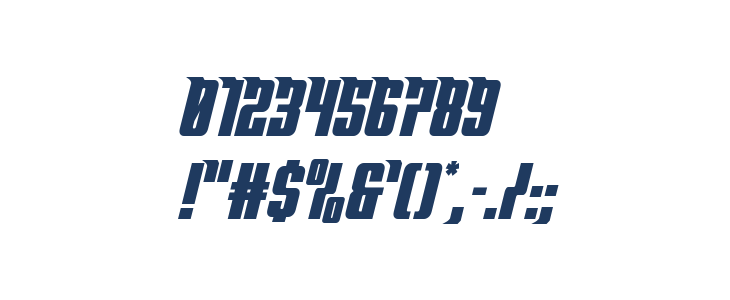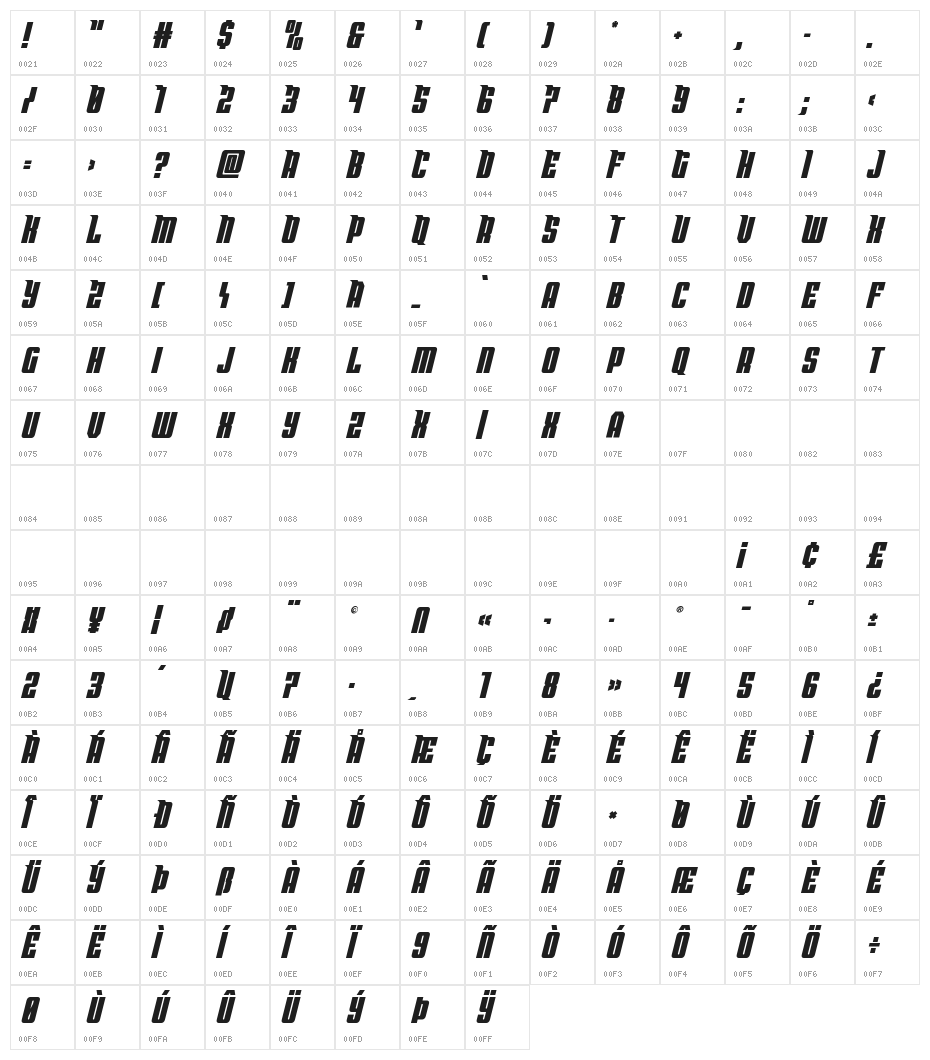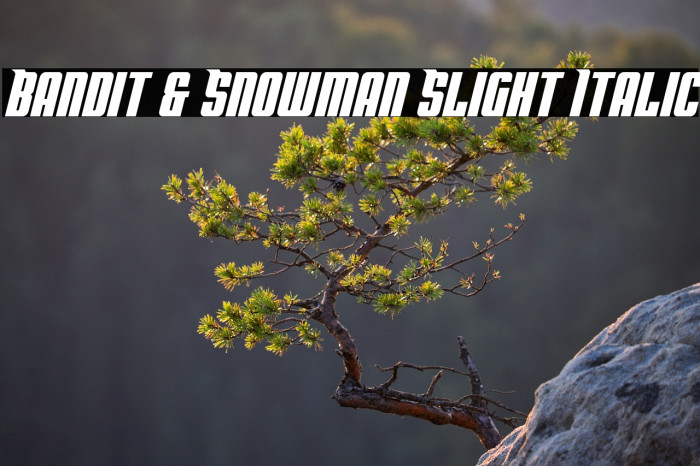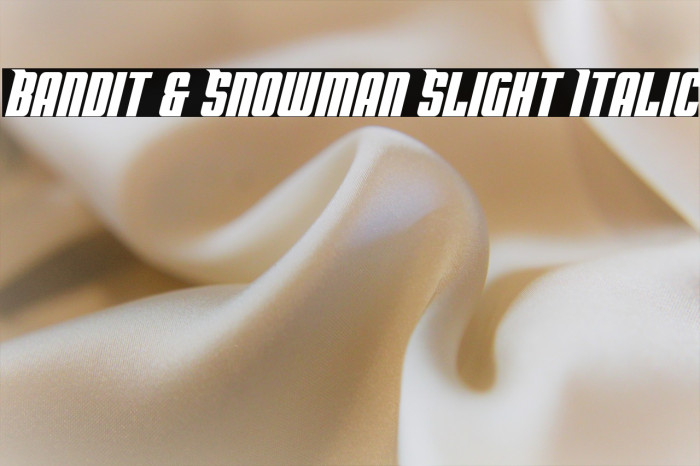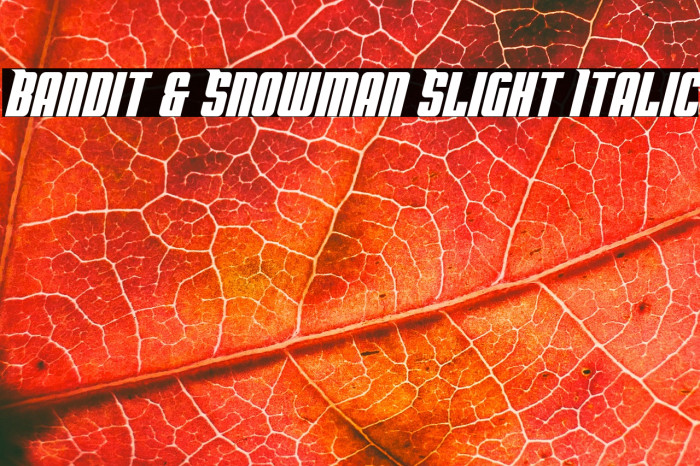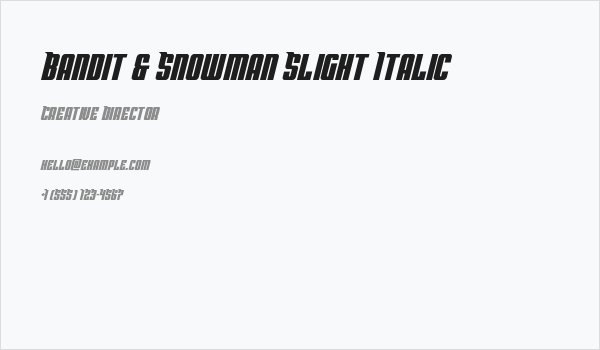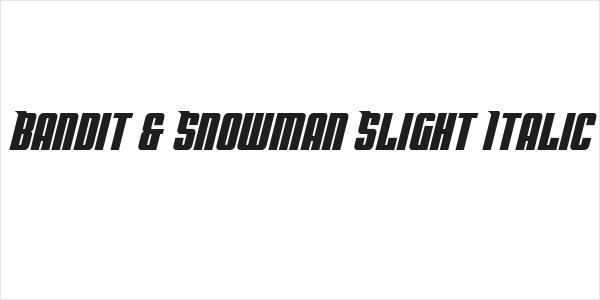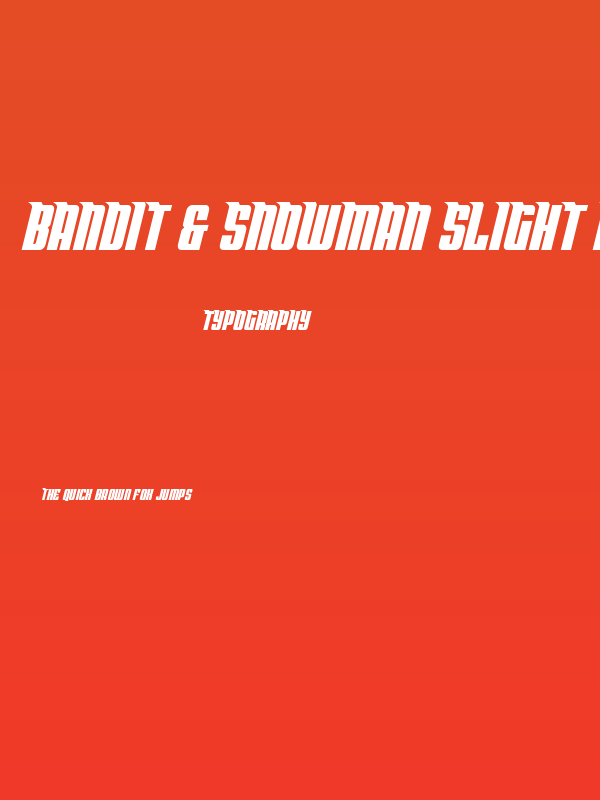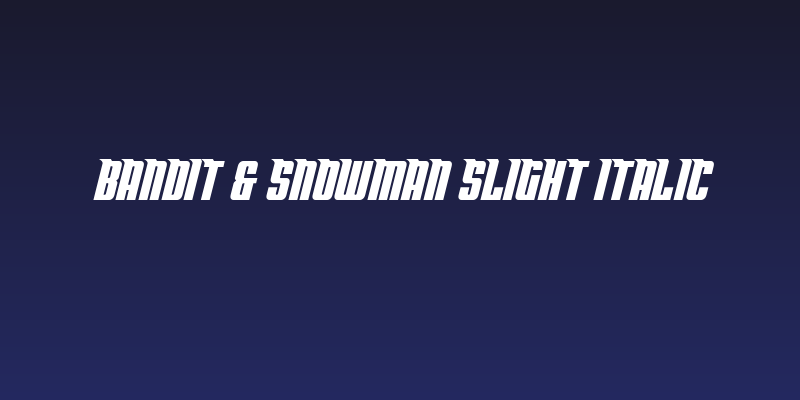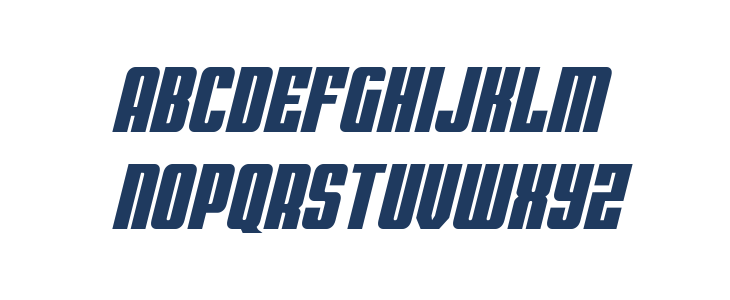
Bandit & Snowman Slight Italic Font
Bandit & Snowman Slight Italic Description
This font features a bold and dynamic style with a slight italic slant, giving it a sense of movement and energy. The characters are robust and impactful, with thick strokes that convey strength and confidence. The uppercase and lowercase letters maintain a consistent design, emphasizing angular lines and sharp edges. The numerals and special characters are equally bold, ensuring uniformity across all text elements. This font's design is ideal for making a strong visual statement, with its high contrast and distinctive appearance.
| Proposed Projects | Ideal for sports branding, action movie posters, dynamic logos, and impactful headlines. |